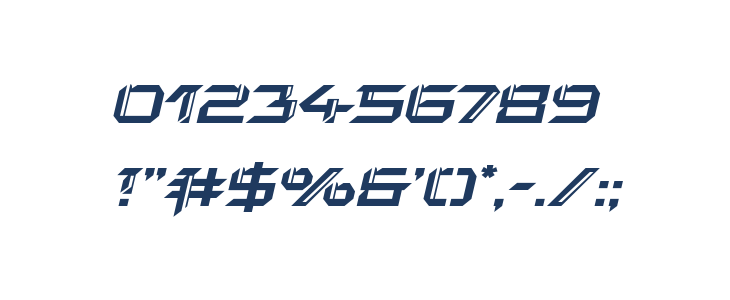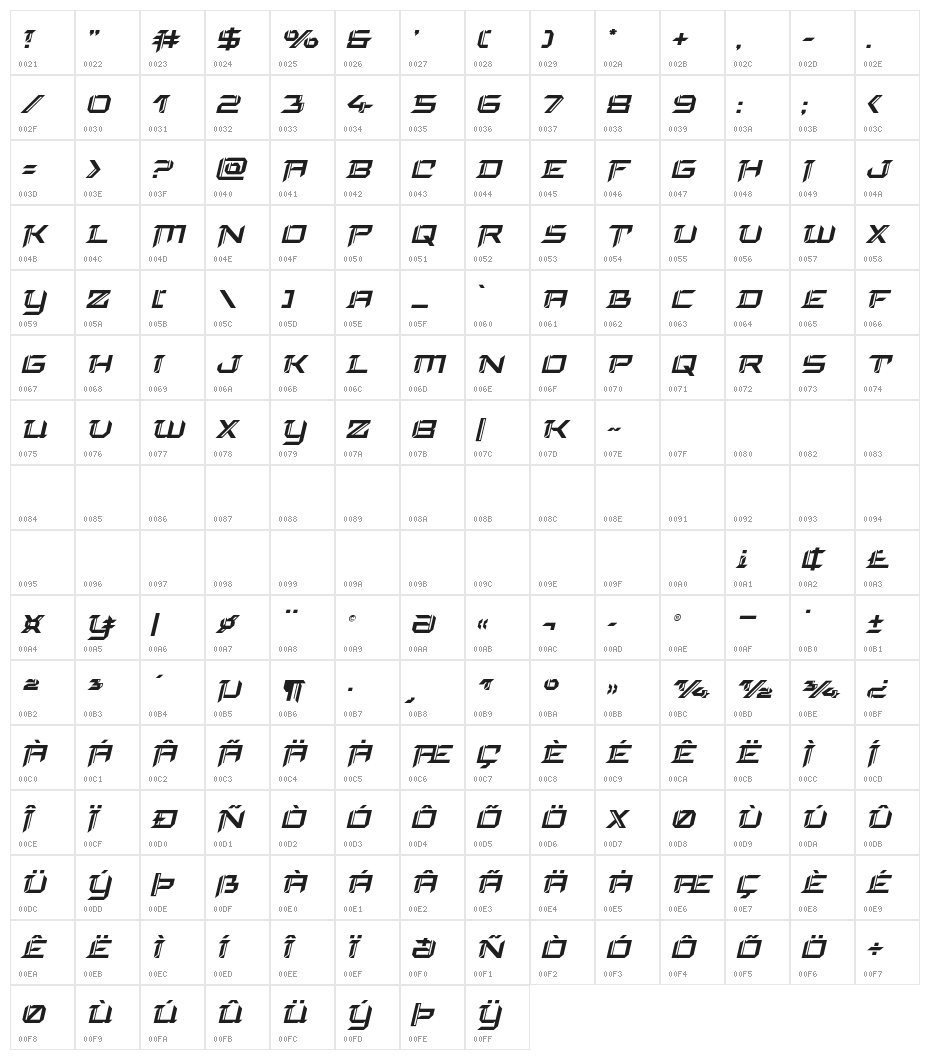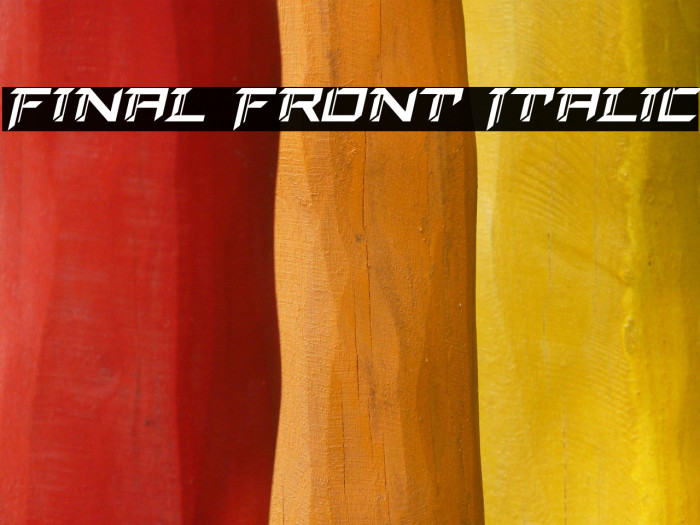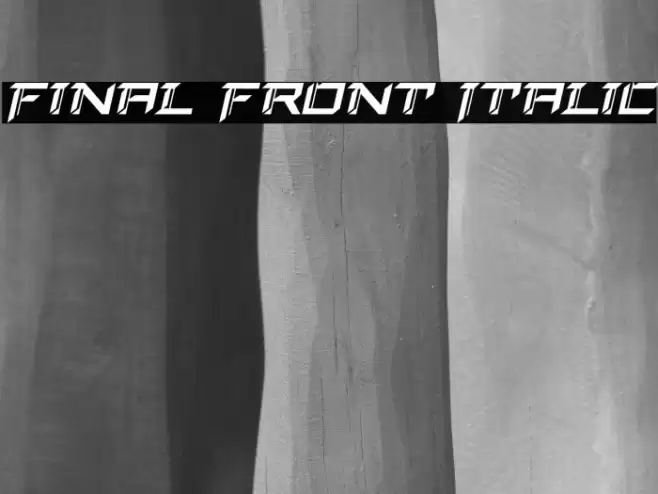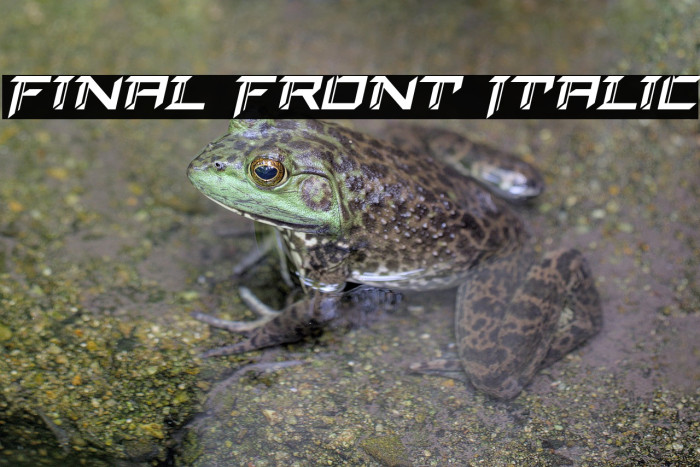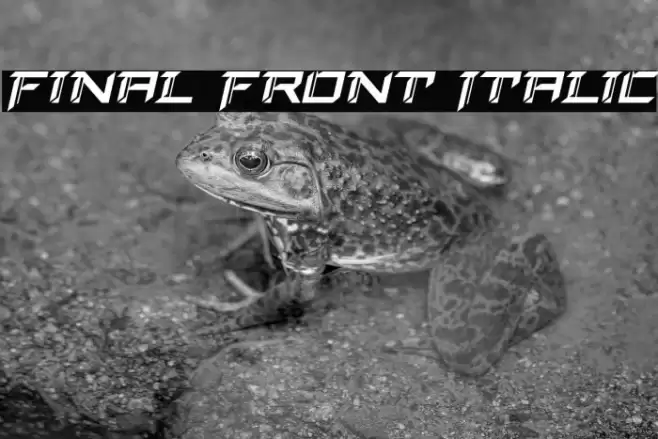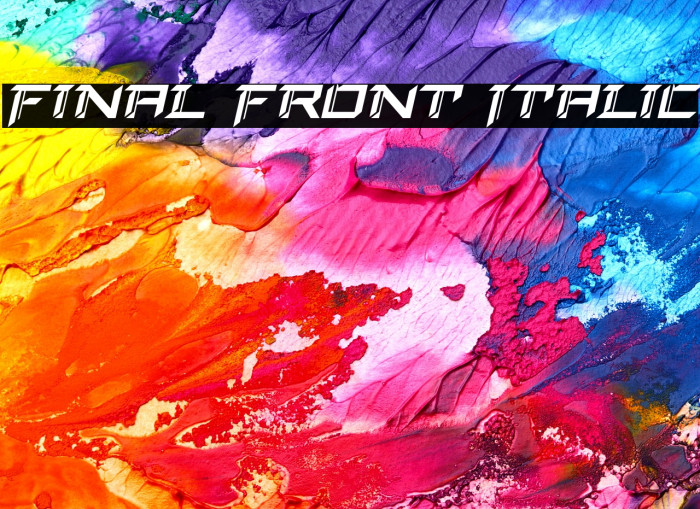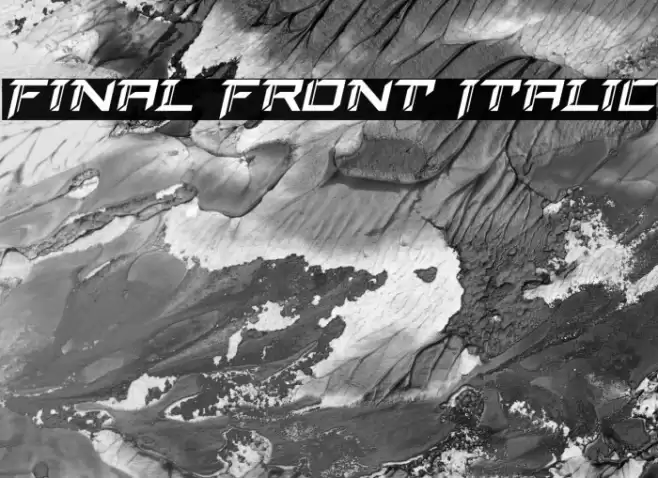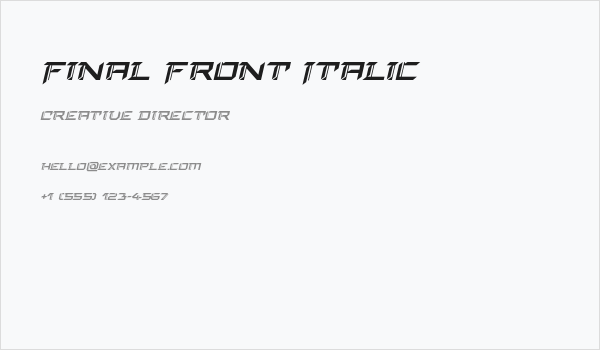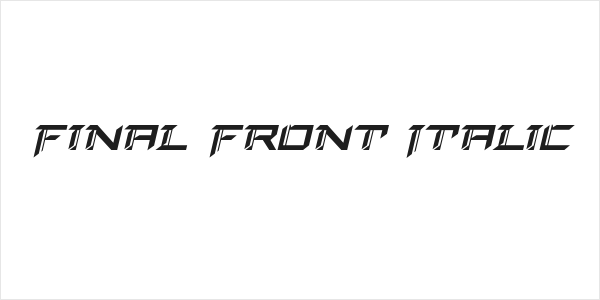
Final Front Italic Font
Final Front Italic Description
This font features a bold and dynamic design with sharp, angular lines and a futuristic aesthetic. The characters are italicized, giving them a sense of motion and speed. Each letter is constructed with a combination of thick and thin strokes, creating a high contrast that enhances its edgy appearance. The uppercase and lowercase letters maintain a consistent style, with unique geometric elements that make the font stand out. The numerals and special characters follow the same design principles, ensuring uniformity across all glyphs. This font is ideal for projects that require a modern and energetic look.
| Proposed Projects | Ideal for sports branding, video game titles, sci-fi posters, and dynamic logos. |